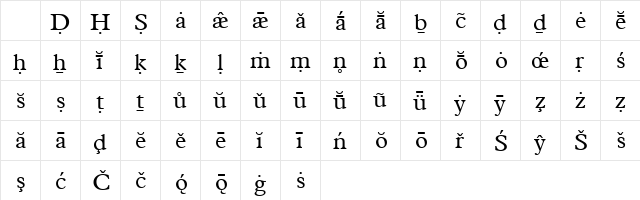
Plantin for oup Alt Regular Free Font
Design Context for Plantin for oup Alt
Plantin for oup Alt is a composed and adaptable typeface that performs quietly and consistently across a wide range of design contexts.